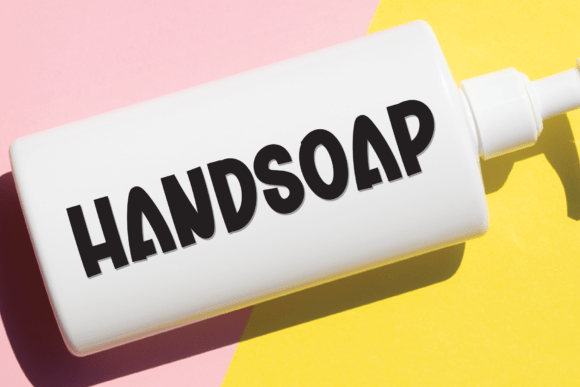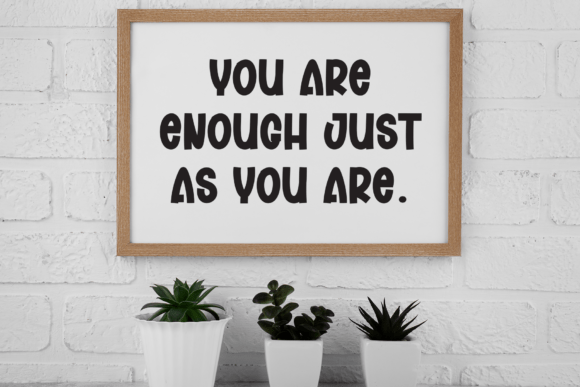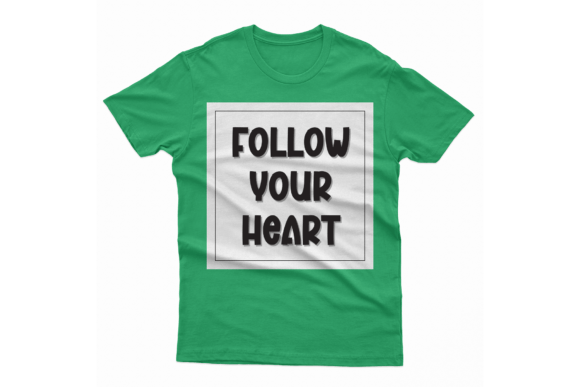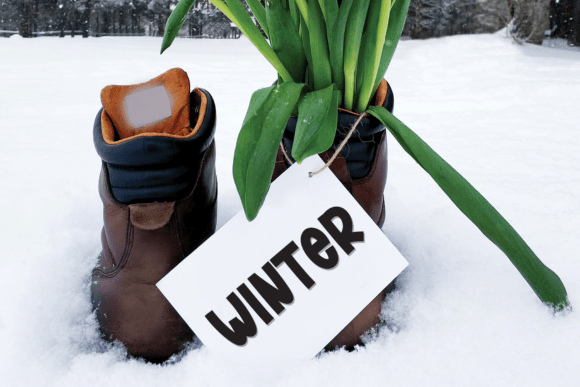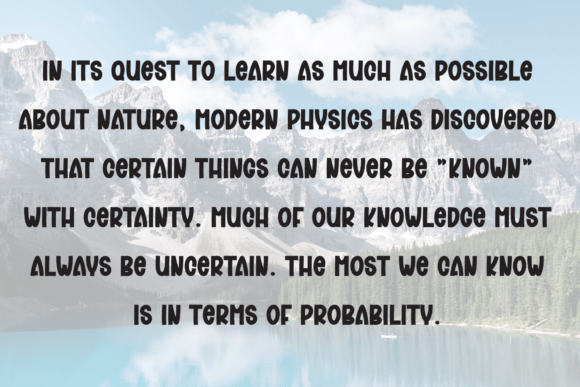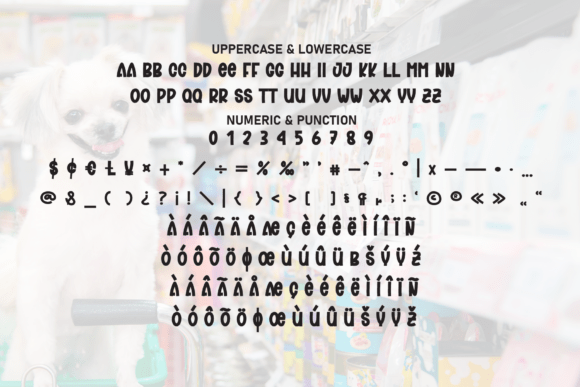
Introduction to Pet Shop Font
Discover the infectious charm of a truly captivating handwritten display font that effortlessly radiates warmth and camaraderie.
Imbued with a magnetic charisma, this vivacious font is an ideal pick for crafting elegant wedding invitations, heartwarming greeting cards, or any design yearning for a delightful sprint of exuberance It transcends the norm of simple typography by serving as a vessel for expressing kindness and liveliness with each stroke.